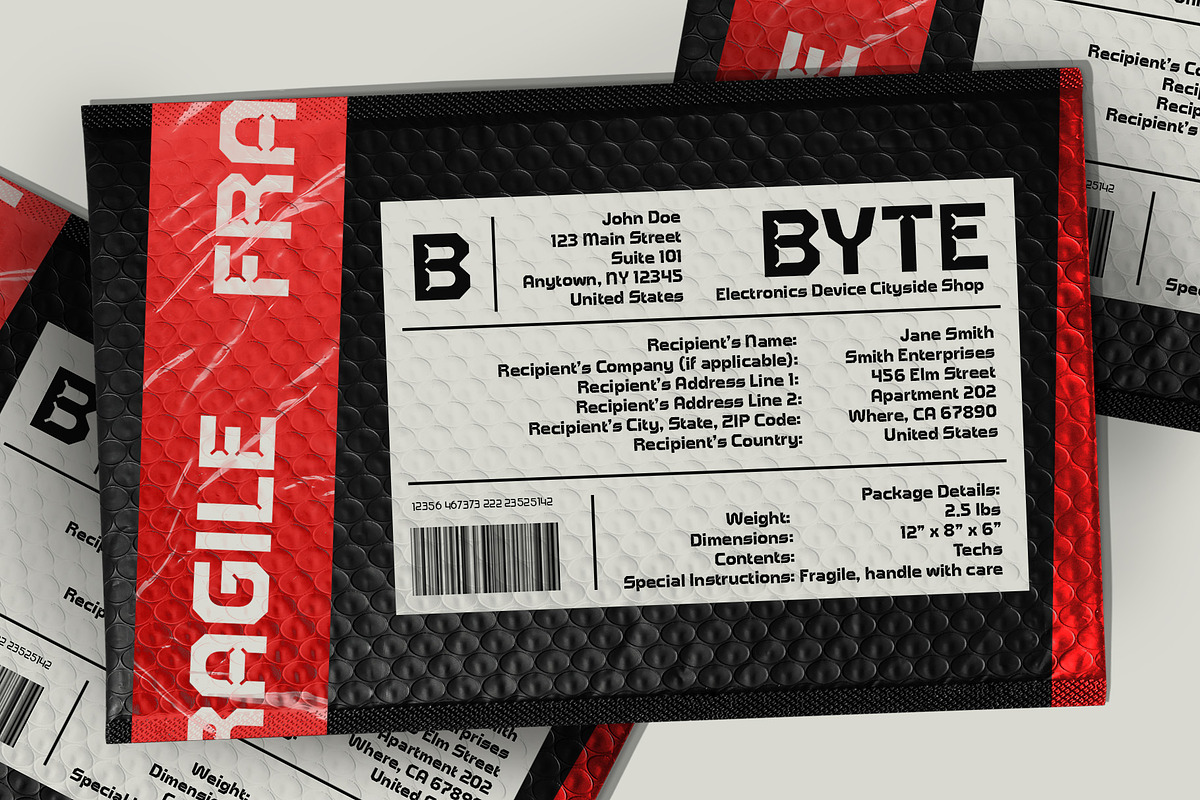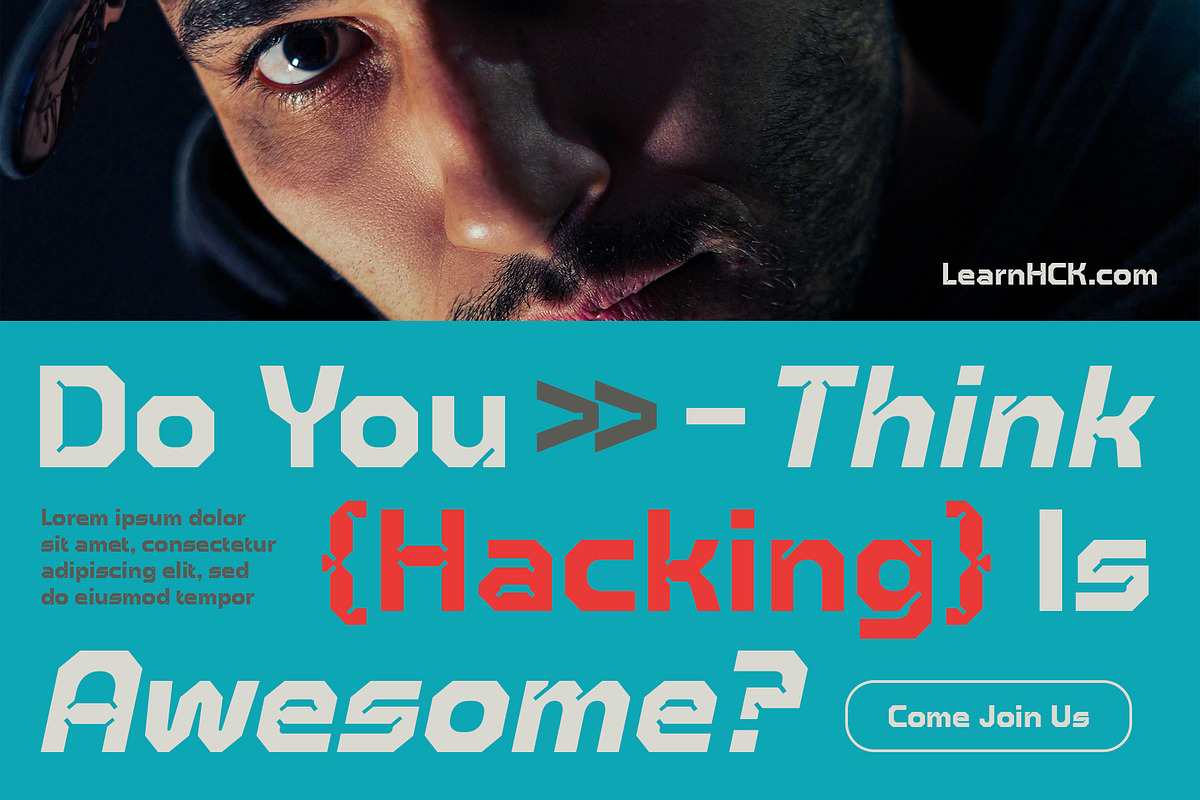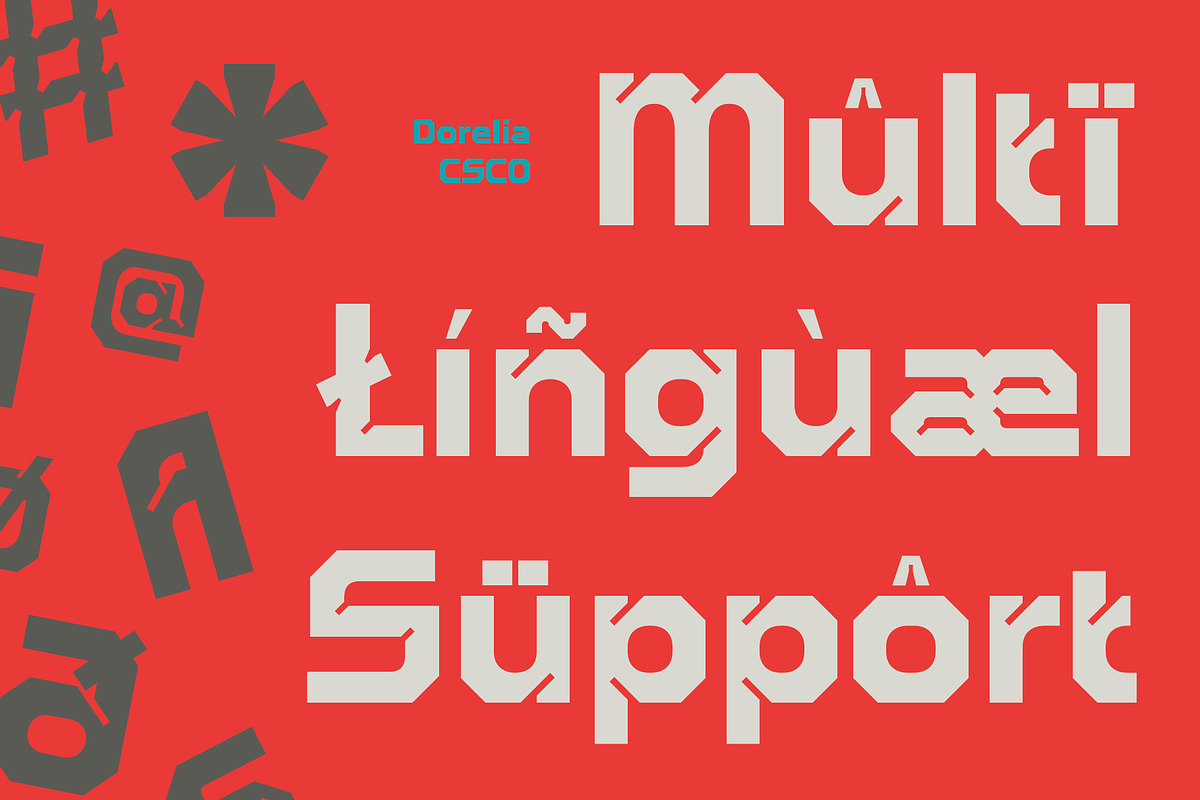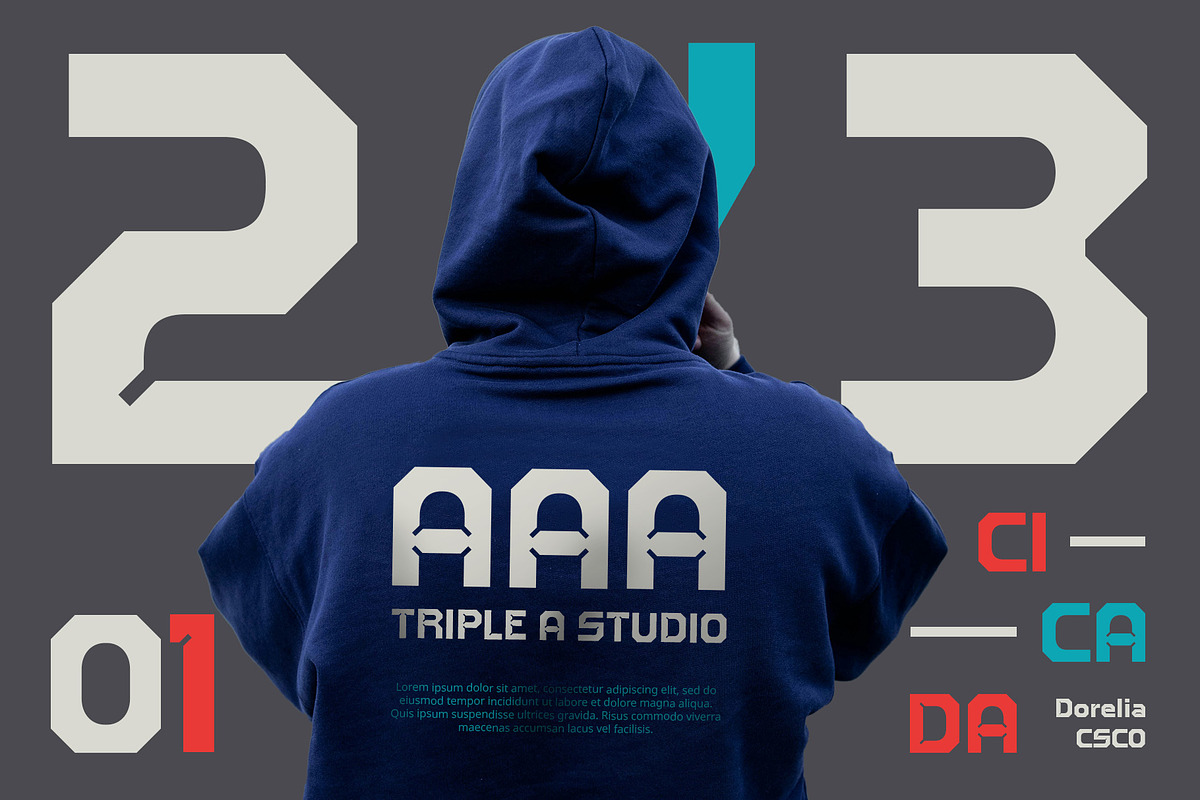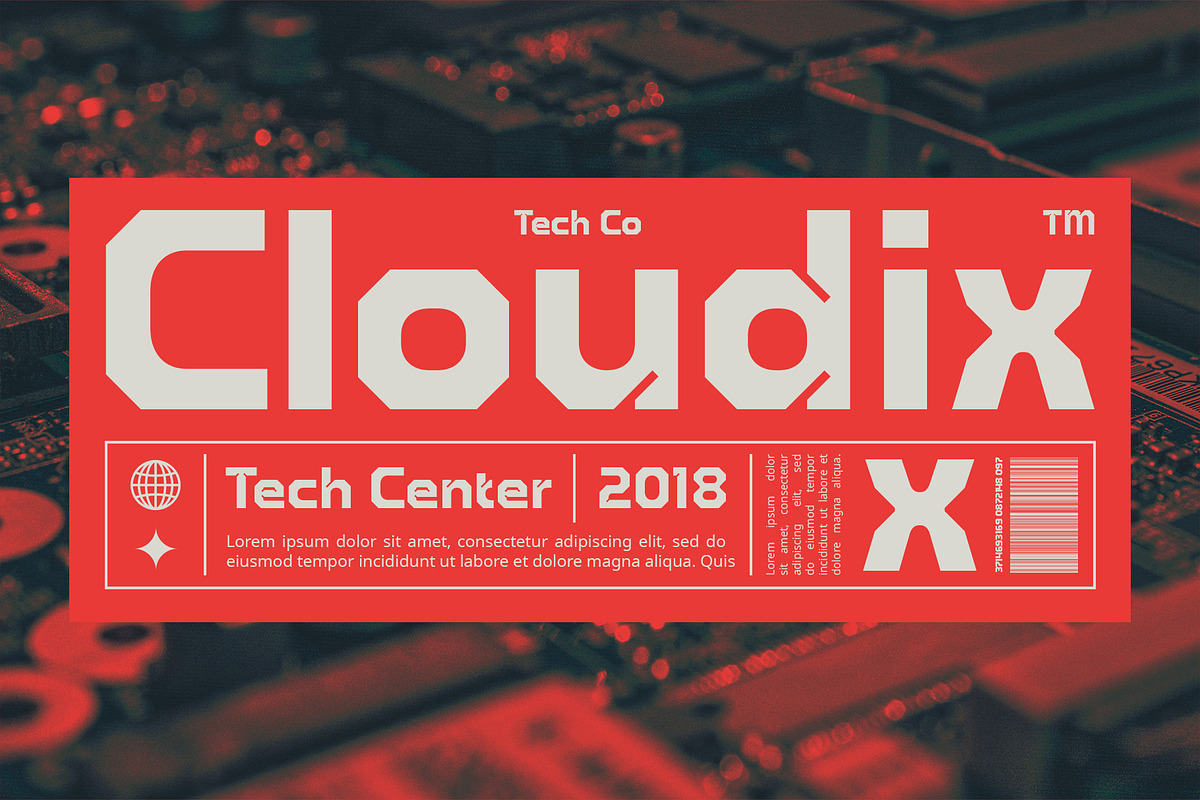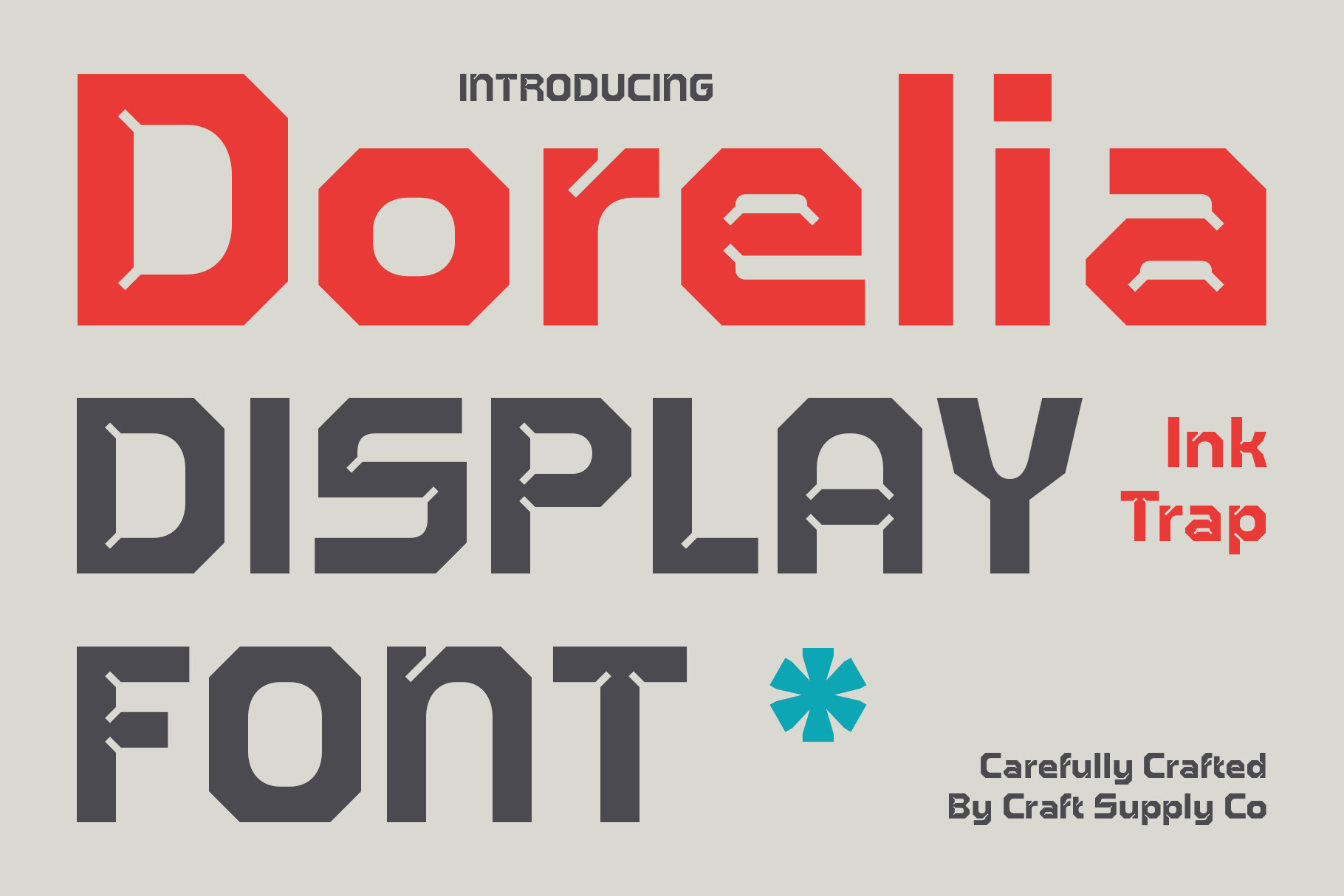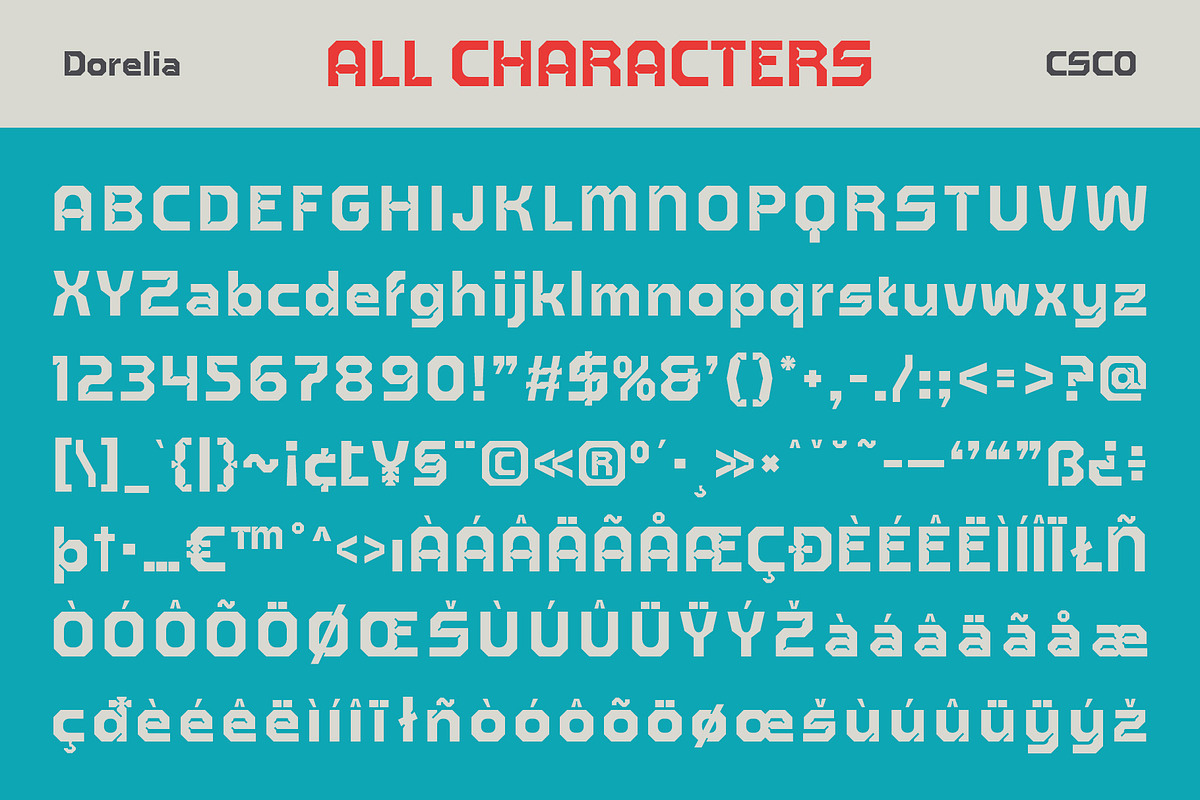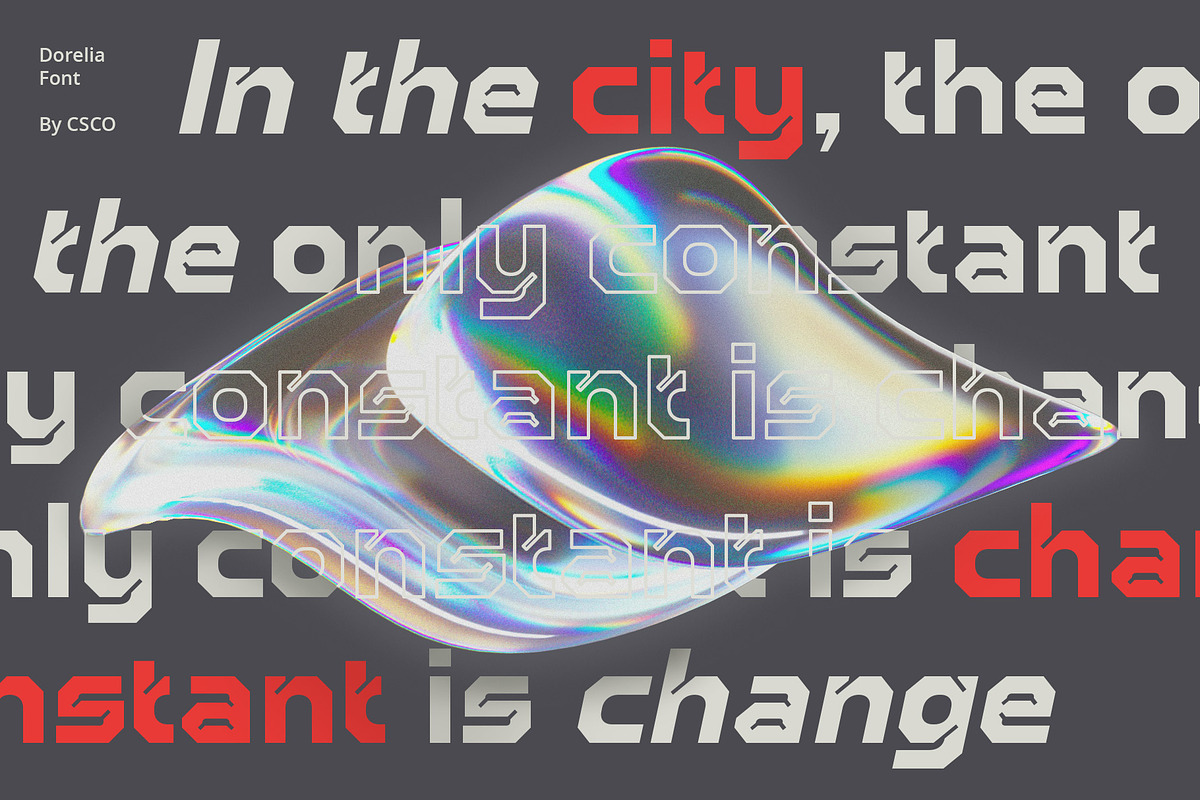
Dorelia – Inktrap Font
Dorelia: Where Futurism Meets Precision
Futuristic Inktrap Display Font
Dorelia is a bold display font that combines futuristic aesthetics with distinctive inktrap details. Perfect for creating eye-catching displays, this font adds character and charm to your designs.
Bold Font with a Futuristic Inktrap Style
With its strong lines and innovative inktrap elements, Dorelia offers a unique and modern take on traditional display fonts. The bold design and futuristic inktrap details create a captivating and dynamic look, ideal for posters, digital media, and other projects that need a cutting-edge appeal.
Perfect for Striking Displays
Whether you’re designing a flyer for a high-tech event or creating packaging for a forward-thinking product, Dorelia is sure to make a statement. Its bold design and futuristic inktrap style make it perfect for displays that demand attention and convey a sense of modern sophistication.
Versatile and Easy to Use
Despite its distinctive appearance, Dorelia is versatile and easy to use. The font works well in both large and small sizes, making it suitable for a variety of applications, from headlines and banners to logos and more. With its blend of bold design and futuristic inktrap style, Dorelia adds a captivating and contemporary touch to any design.